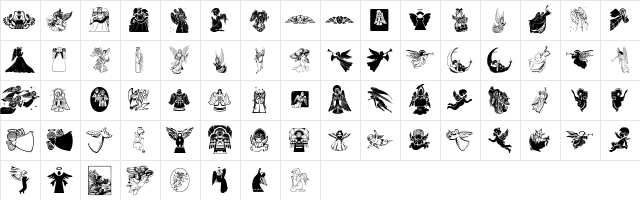
WWHeavenSent Regular
Design Context for WWHeavenSent Typeface
WWHeavenSent is a composed and adaptable typeface that performs quietly and consistently across a wide range of design contexts.